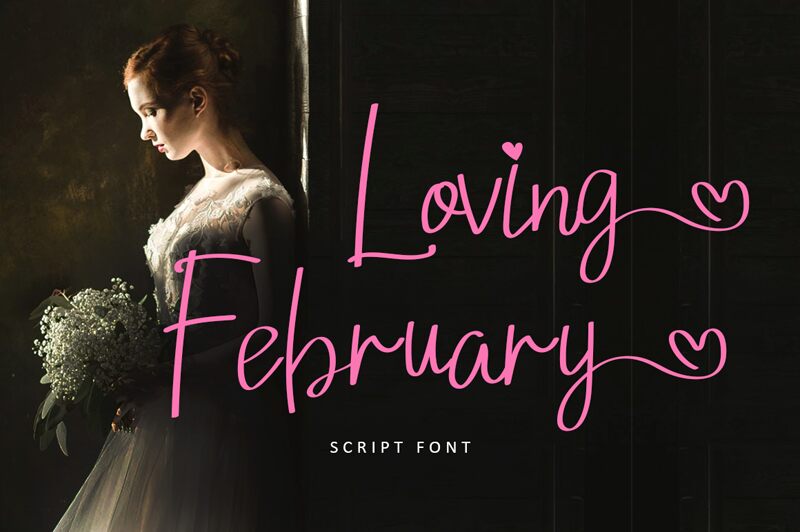
Loving February, a captivating handwritten font by Illushvara, brings a delightful touch to any project with its light weight.
Its graceful strokes and playful curves make it perfect for wedding invitations, love letters, and heartfelt greetings. This enchanting font style adds a romantic and whimsical feel to scrapbooks, baby announcements, and personal blogs. Loving February's delicate lines evoke feelings of tenderness, making it an excellent choice for self-help books or motivational quotes.
Let this charming typeface infuse your creations with warmth and affection.